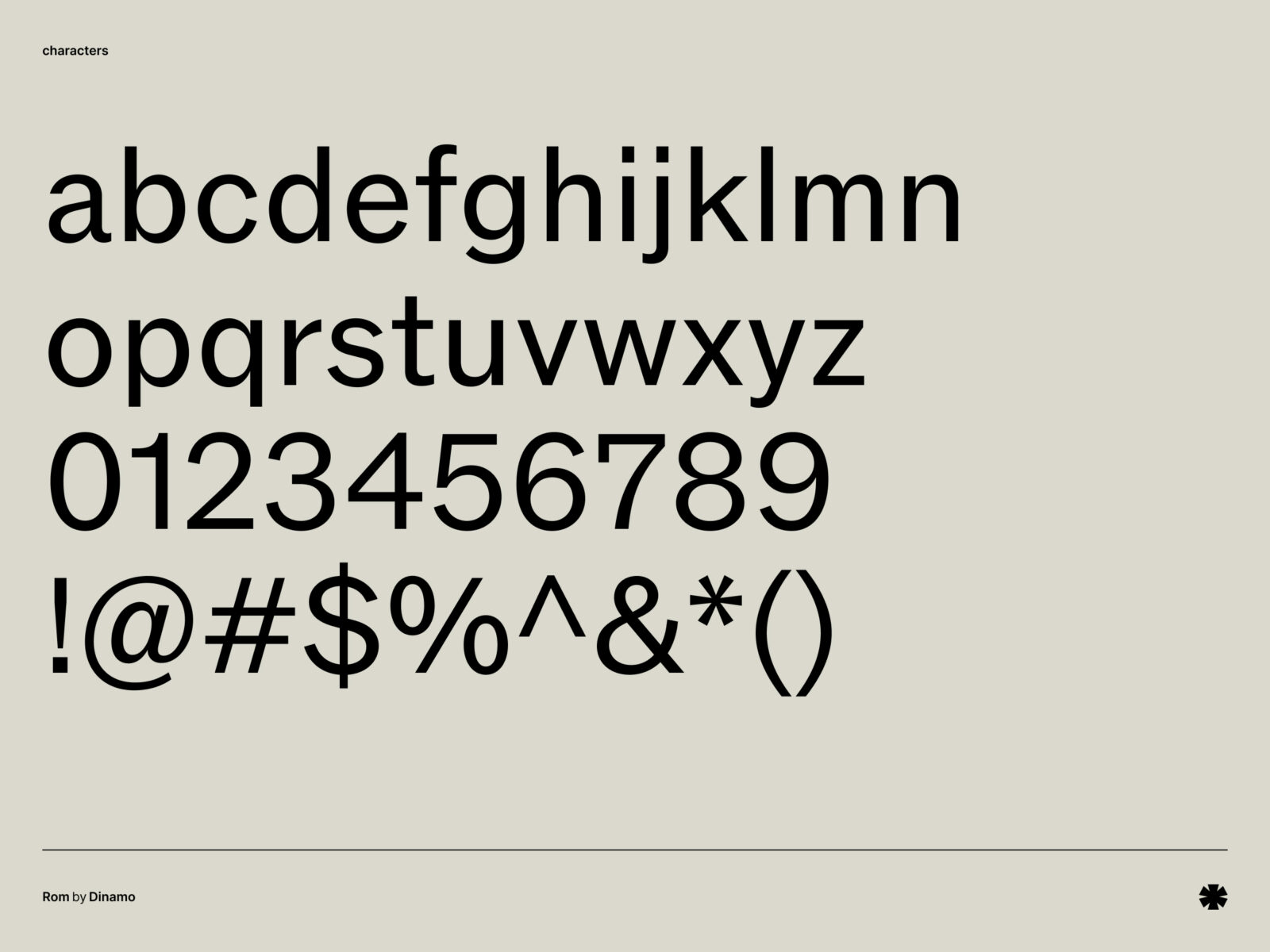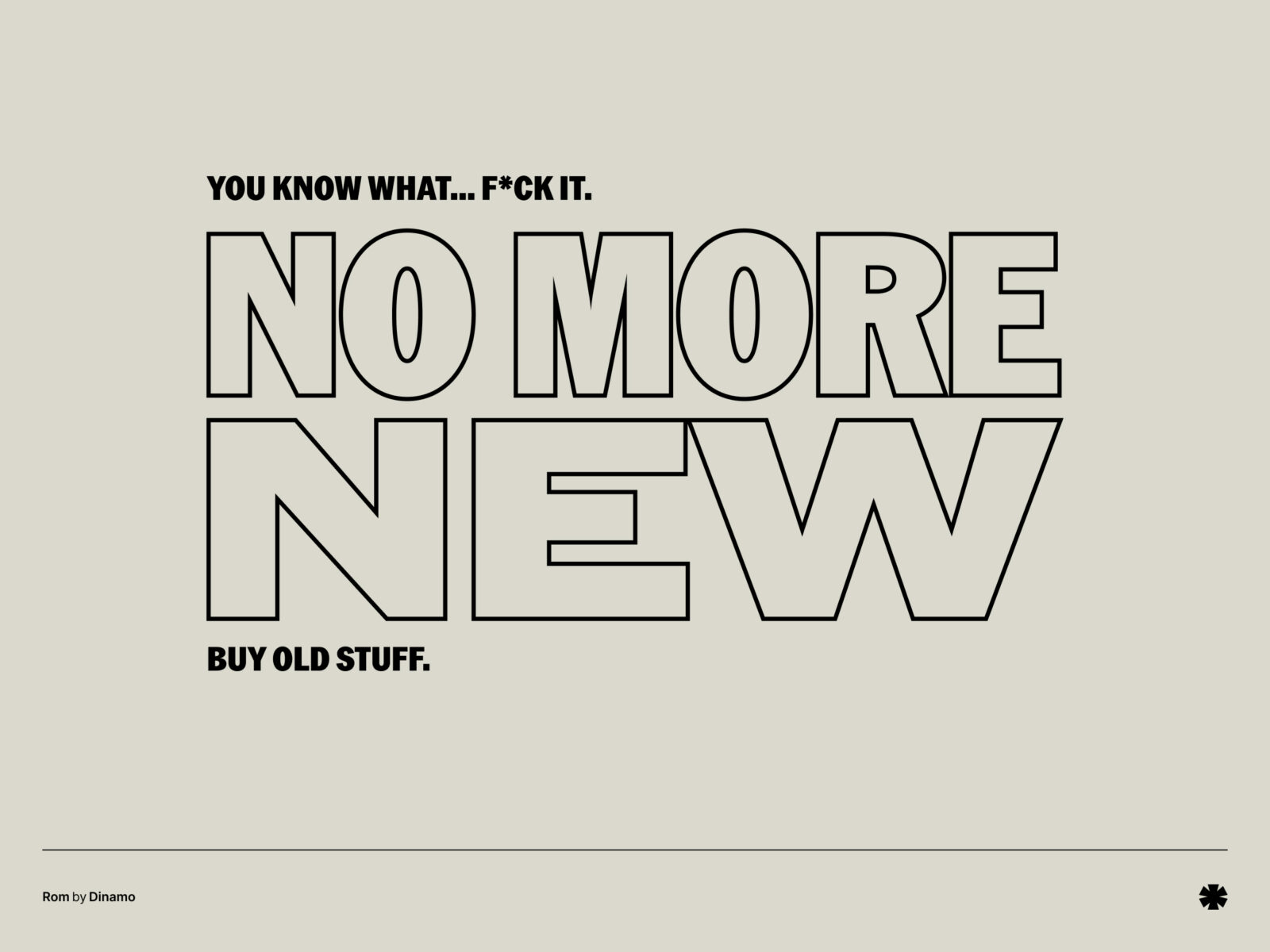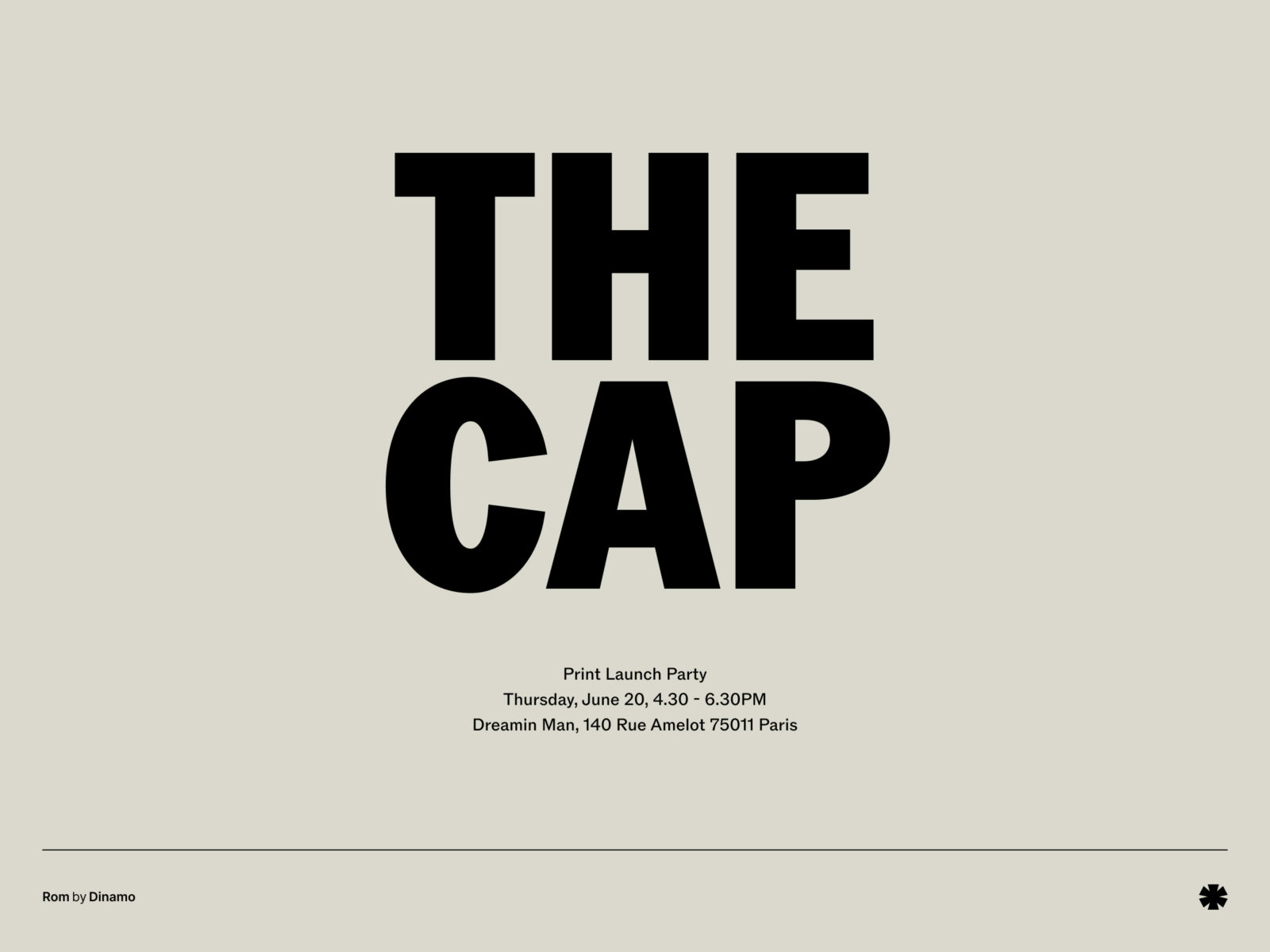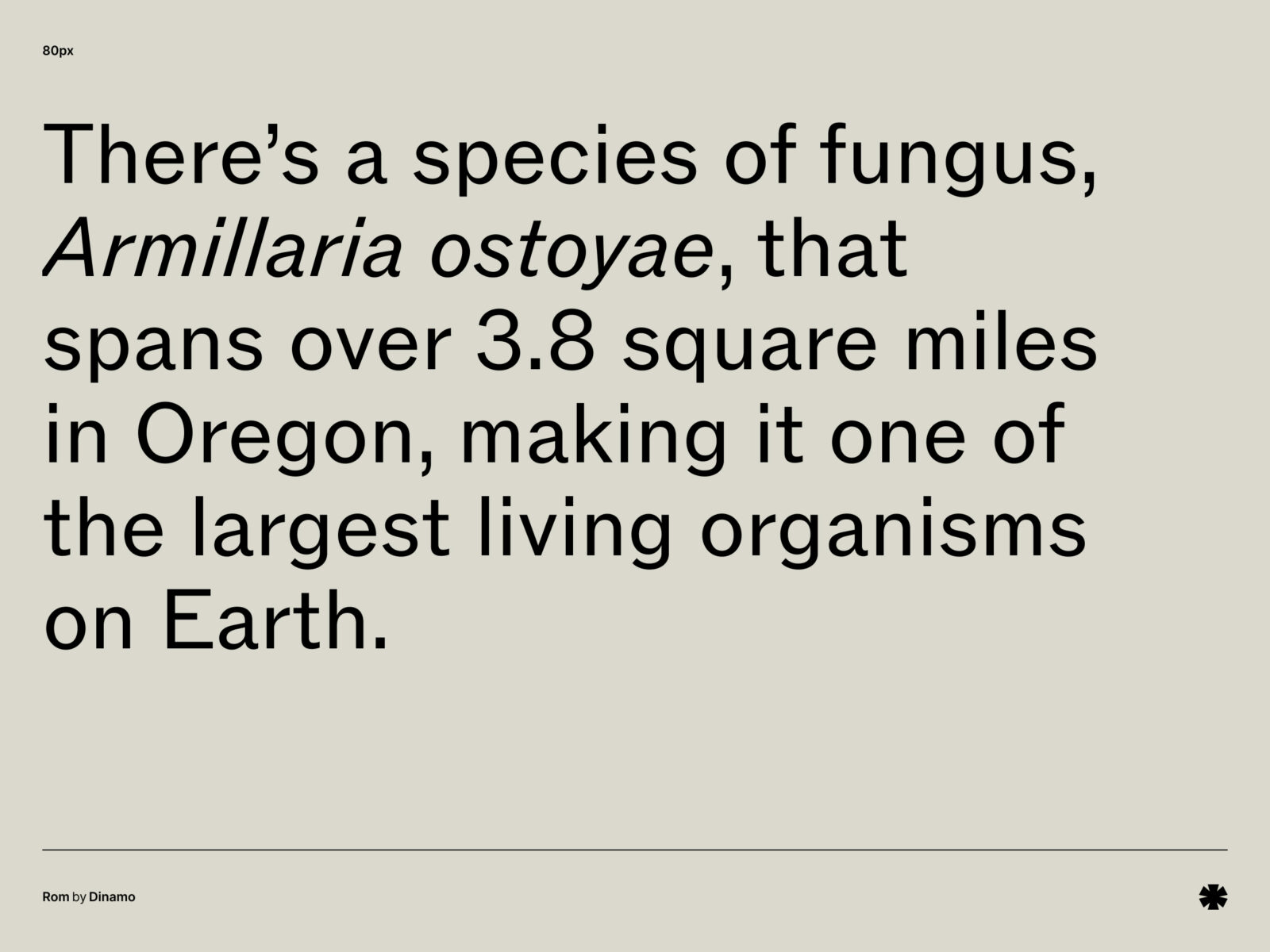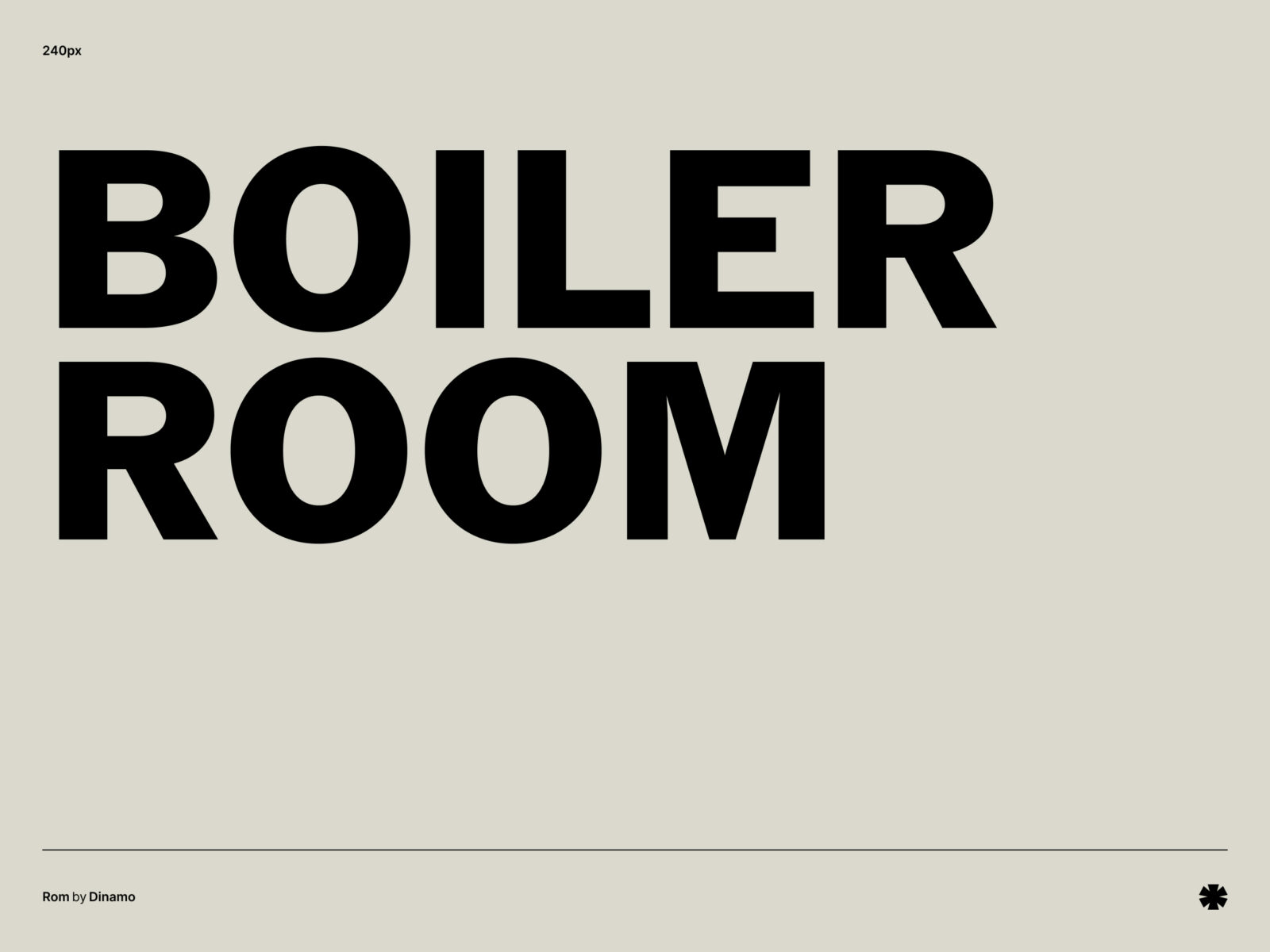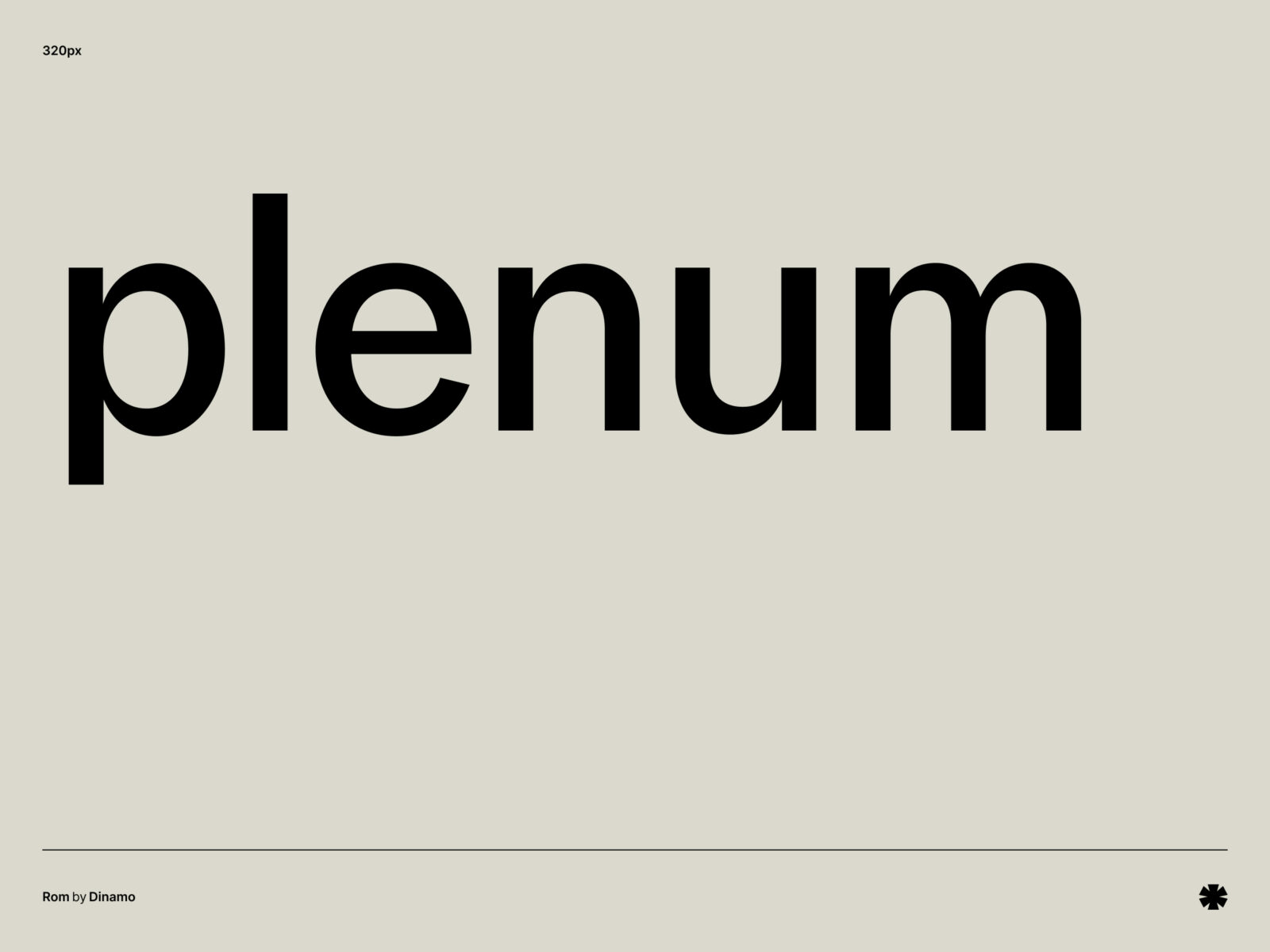
Rom is a badass mix of Grotesk and Gothic vibes and has so many weights and widths. Inspired by old-school art catalogs, it's perfect for projects that need both attitude and elegance.